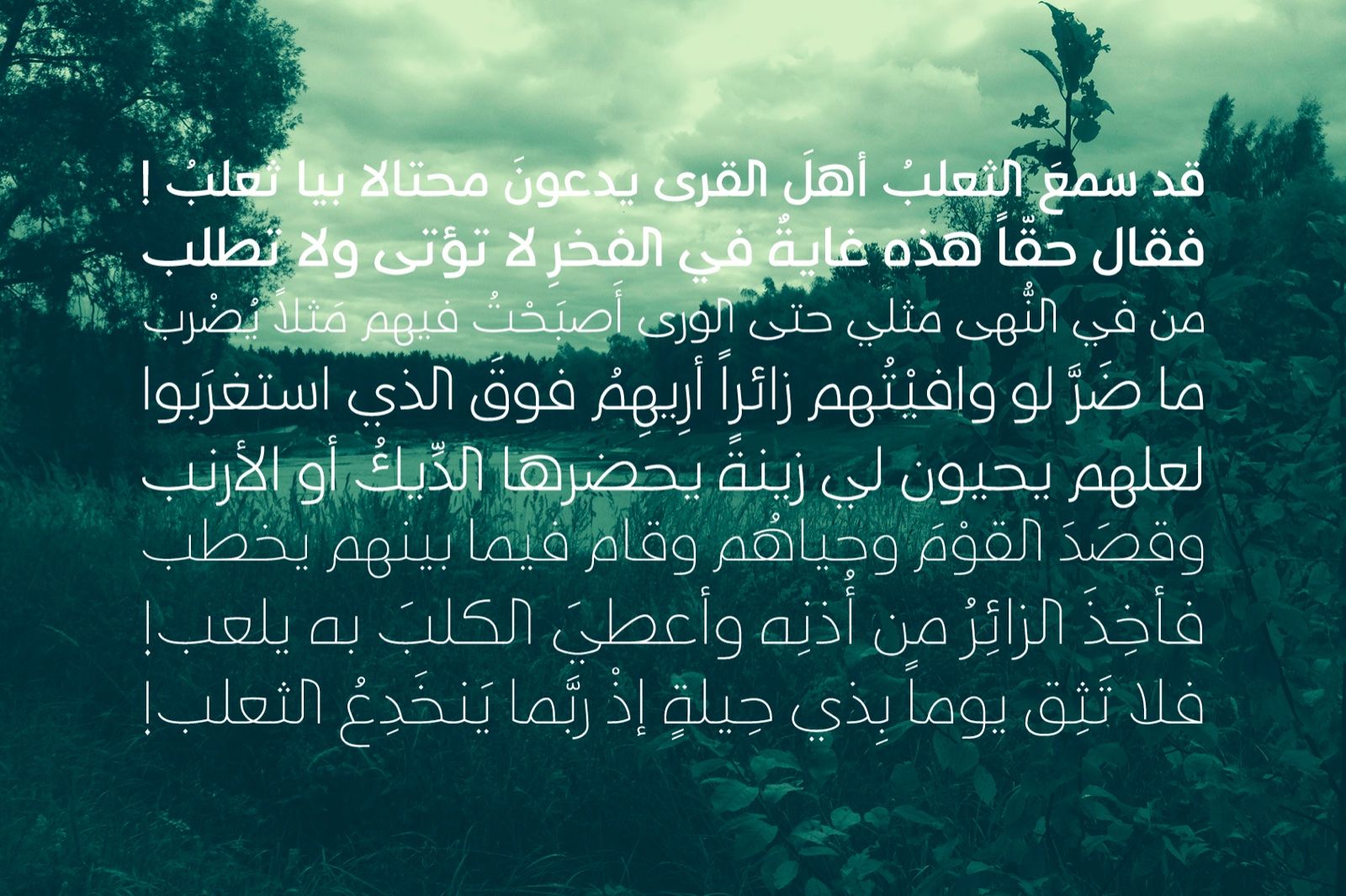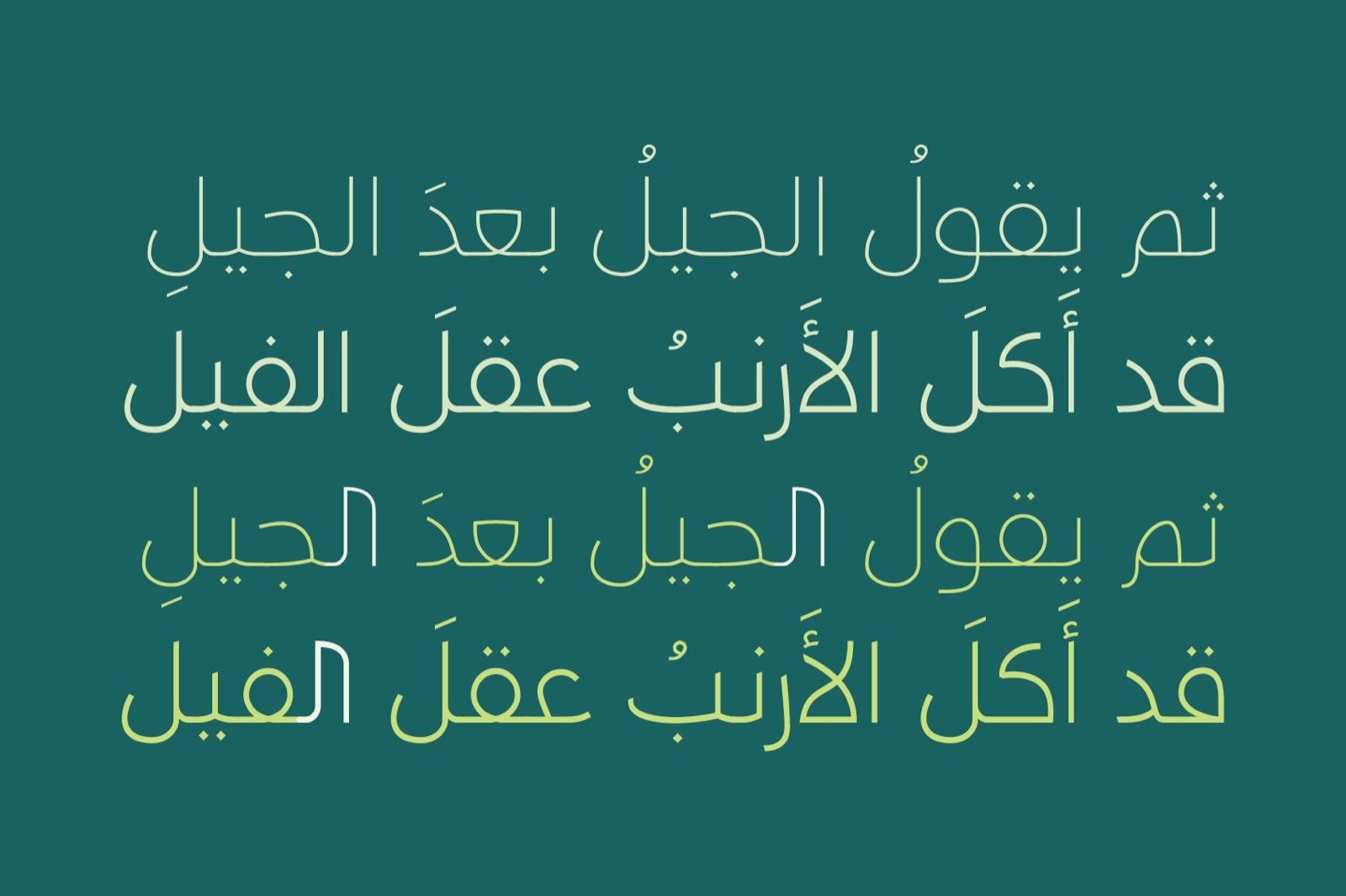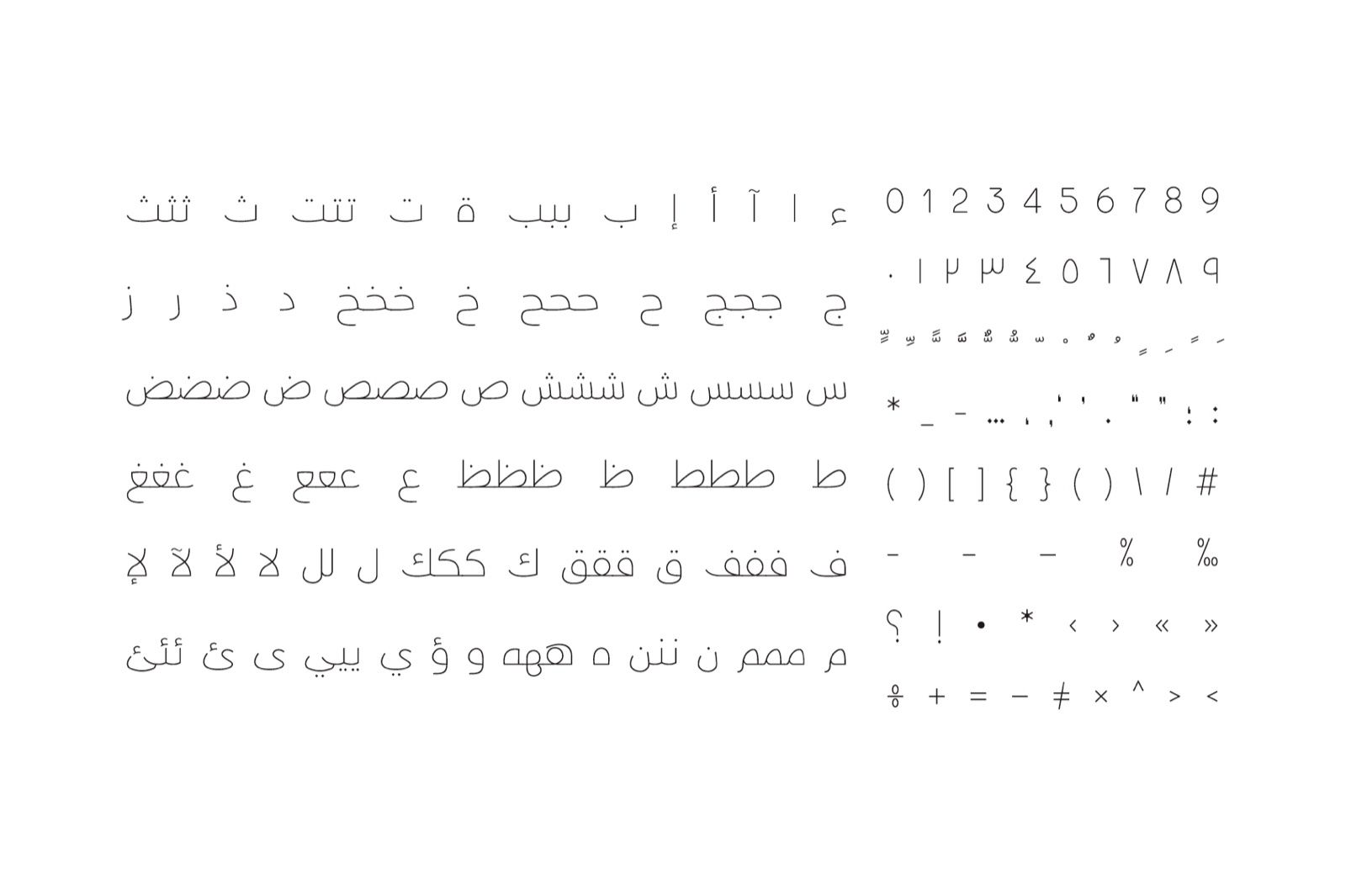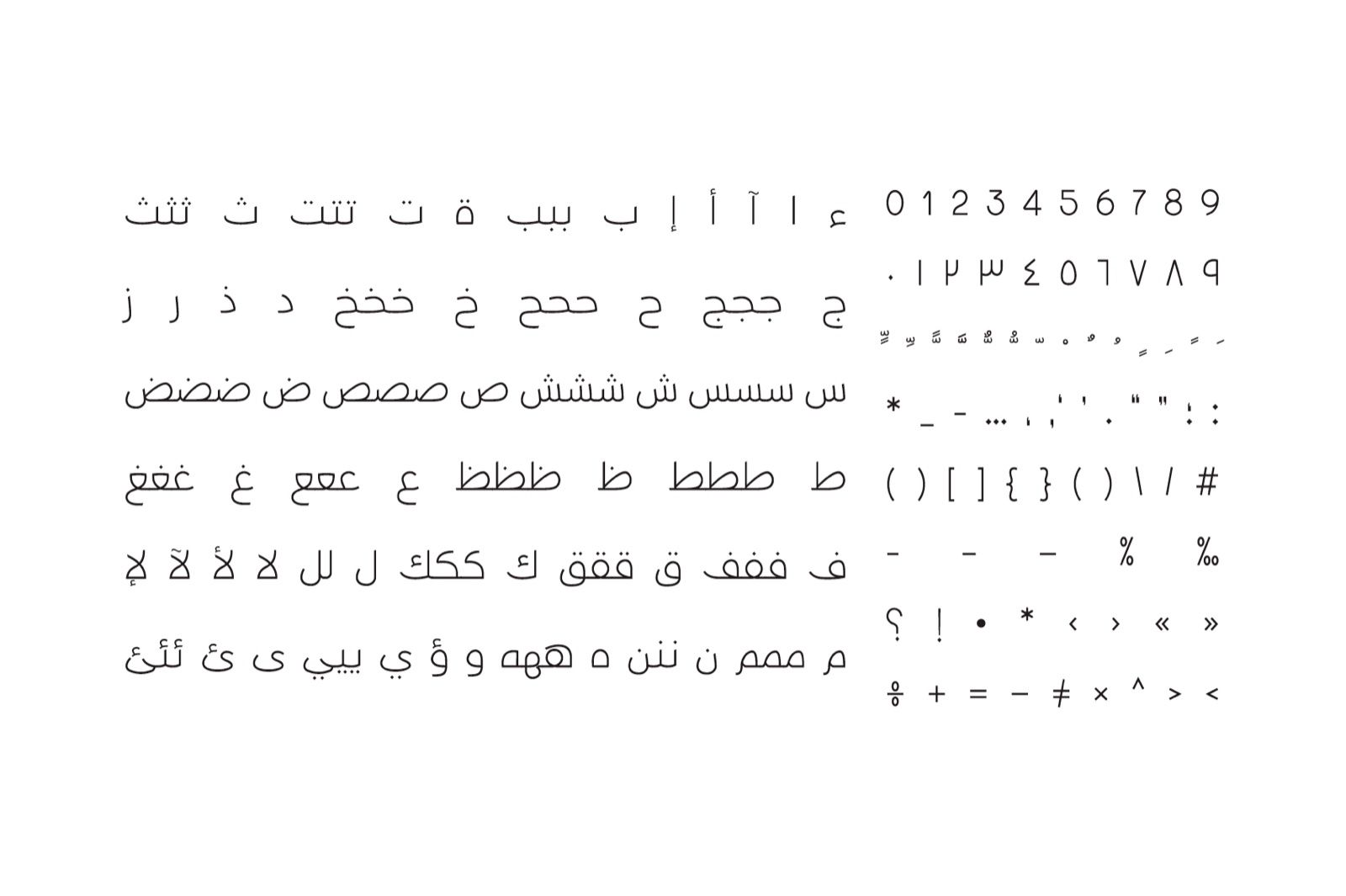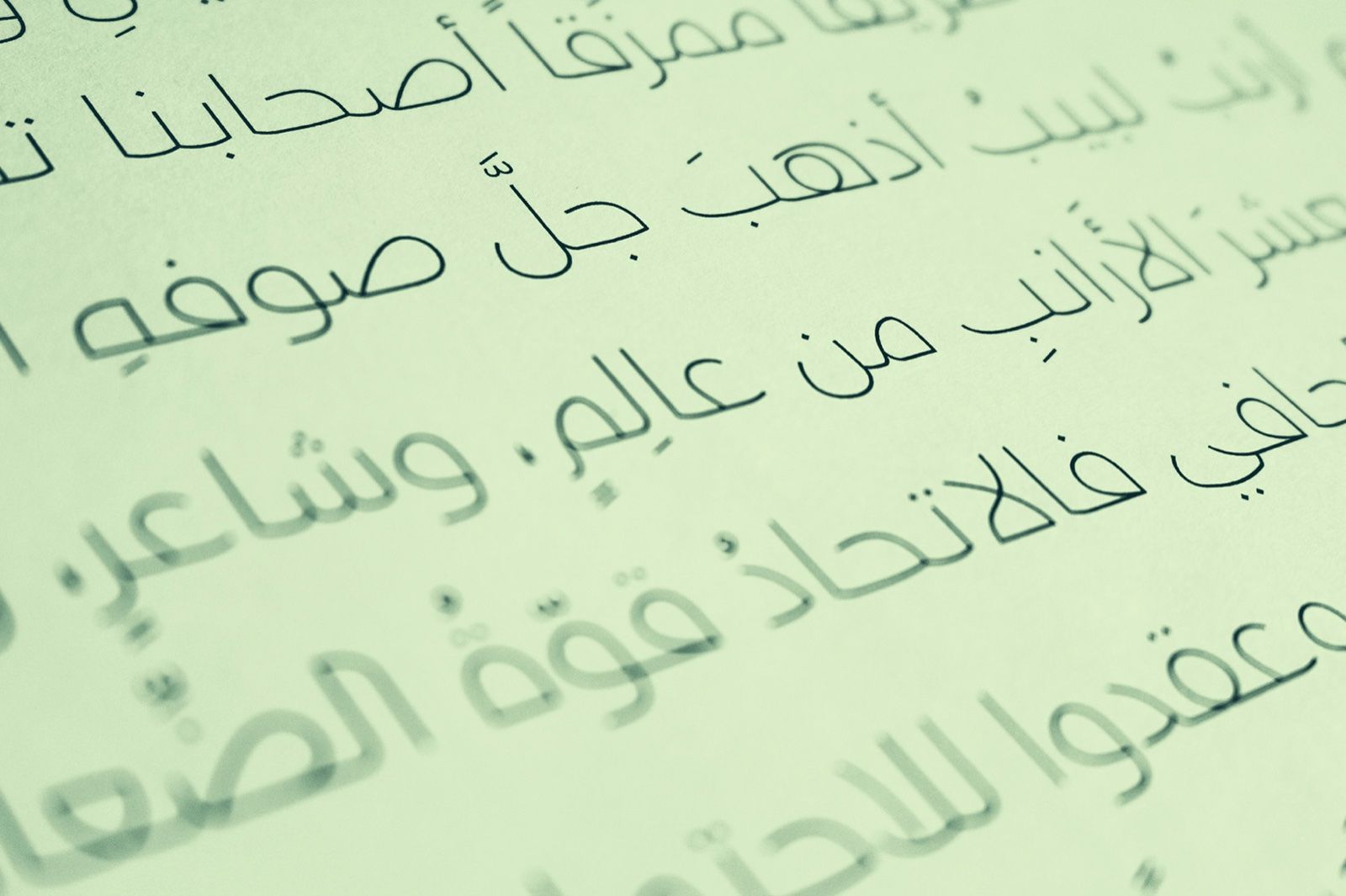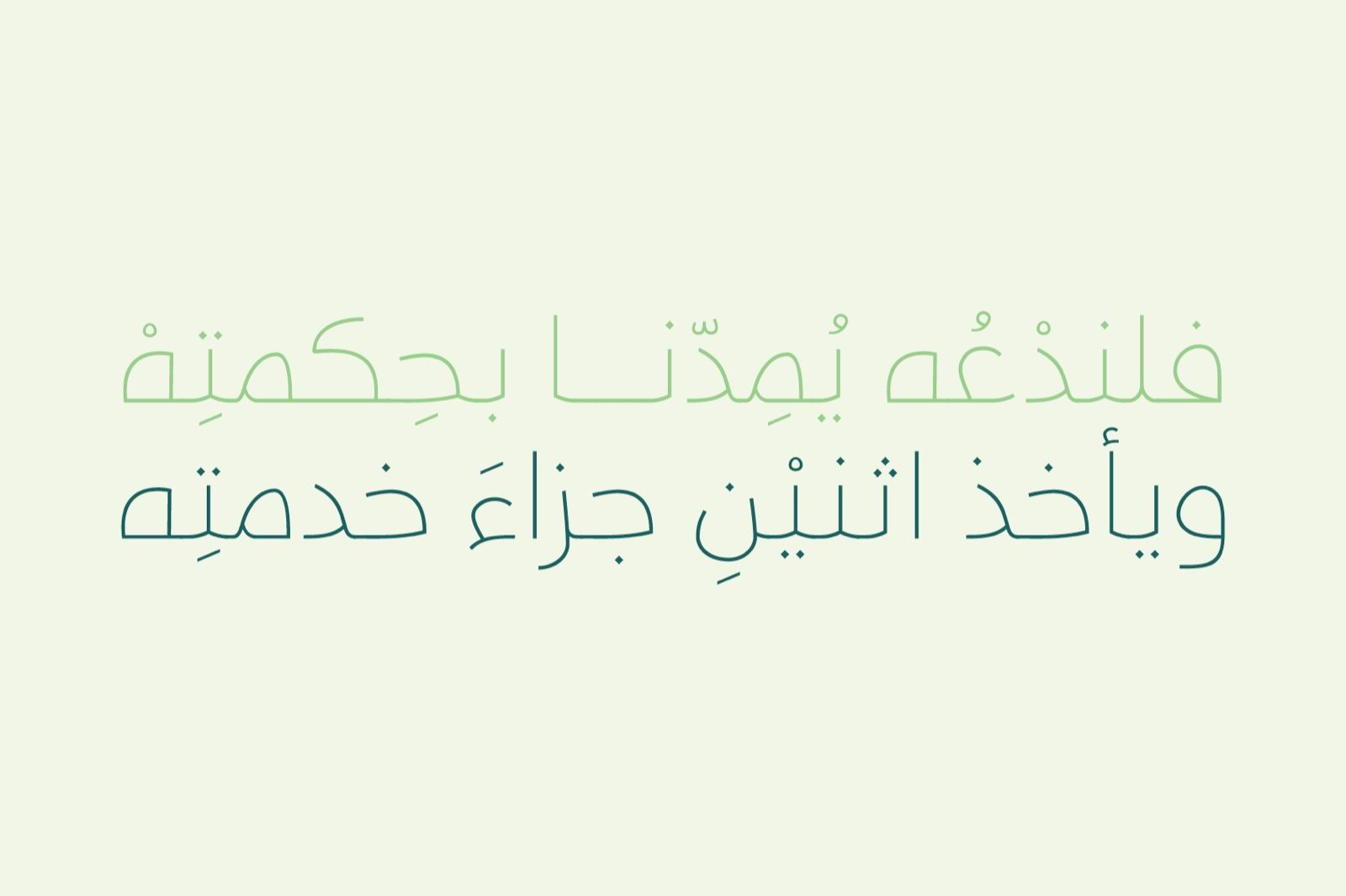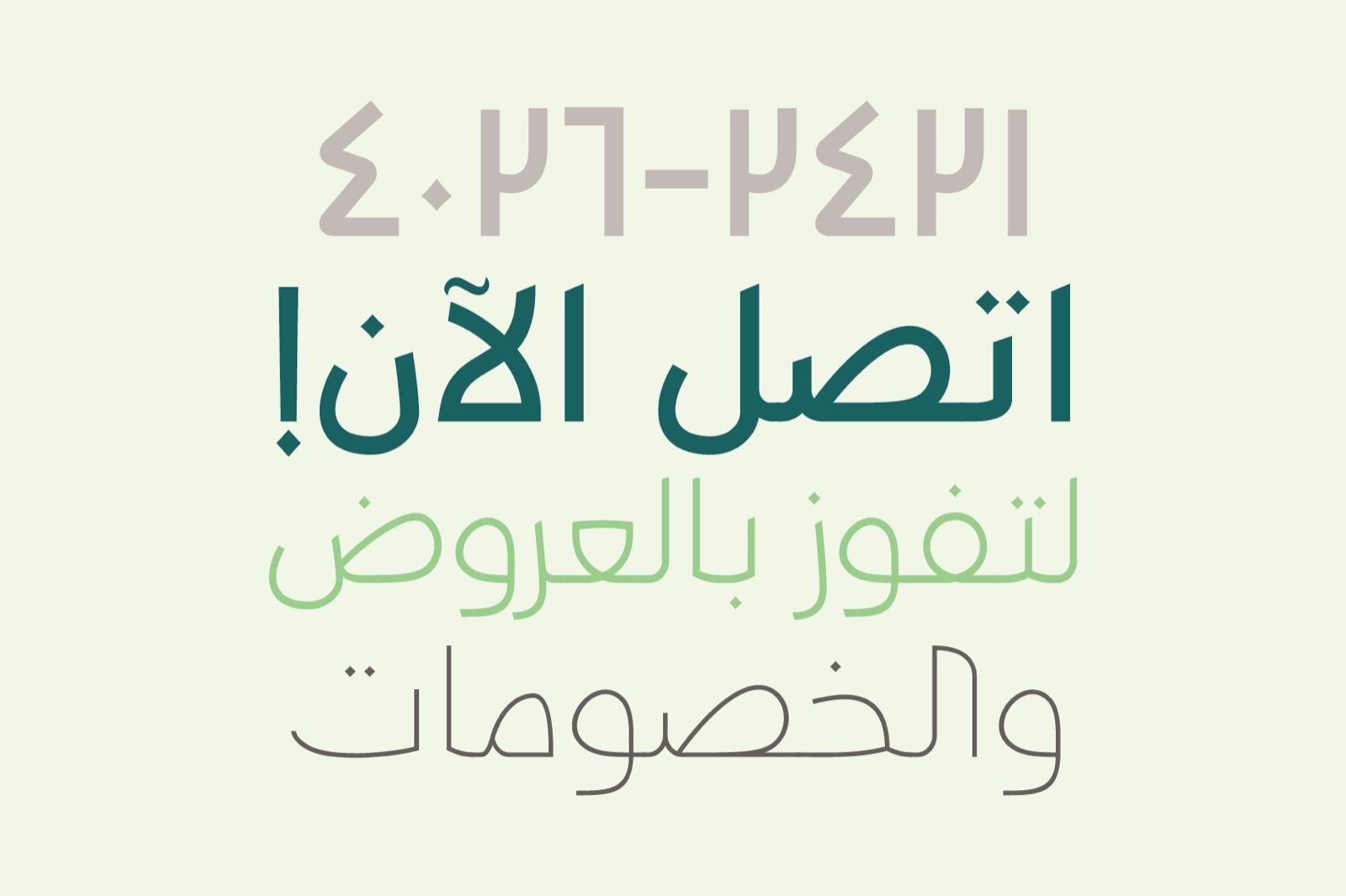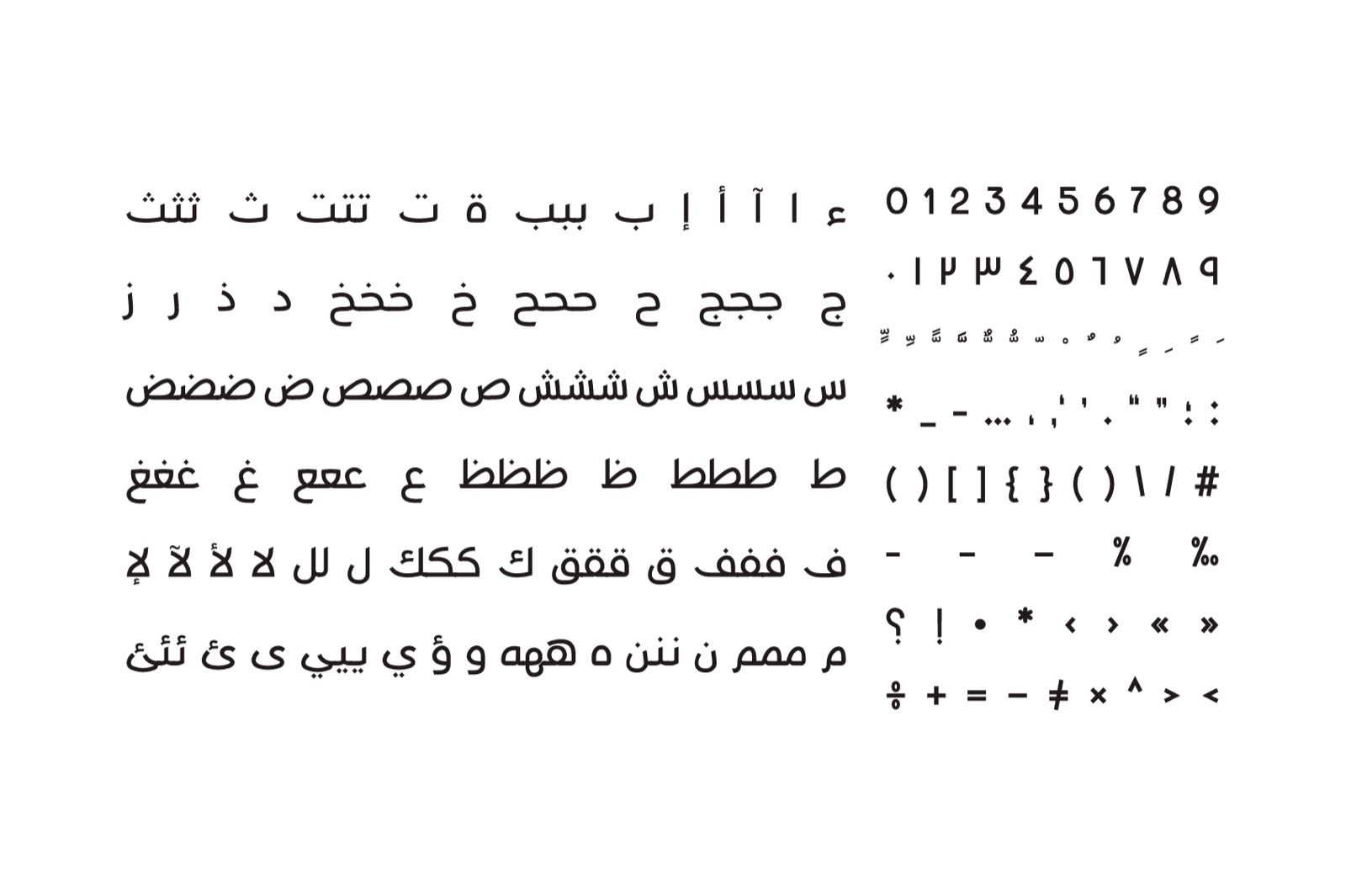
Derived from Arabic, Taleeq translates as ‘Fluent’ or ‘Freed.’ With its refined chirographic style and three distinct weights, the typeface adapts seamlessly to diverse contexts, from editorial design to advertising. Taleeq supports Windows, Mac and mobile applications.